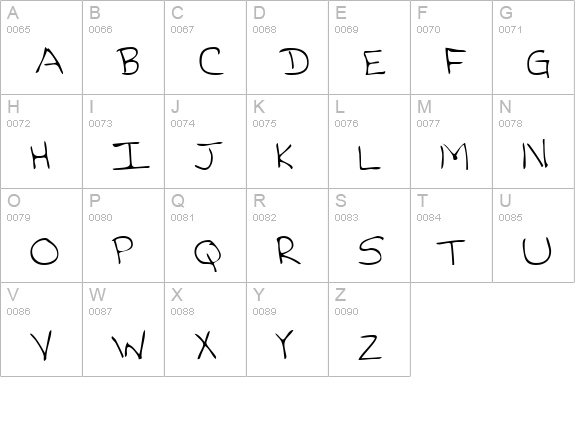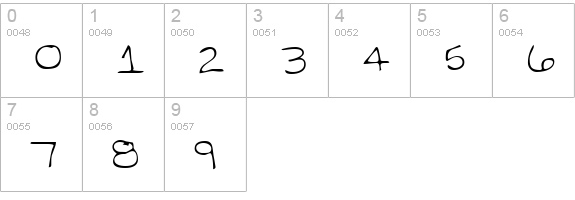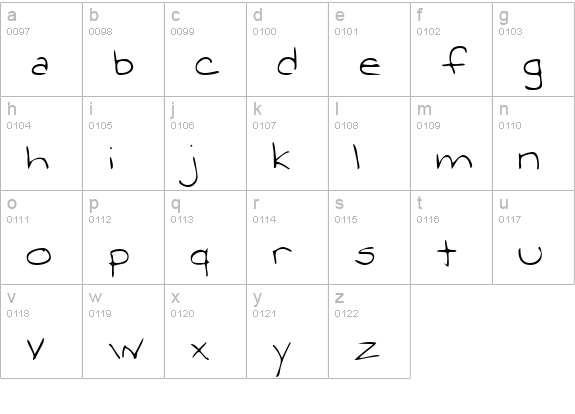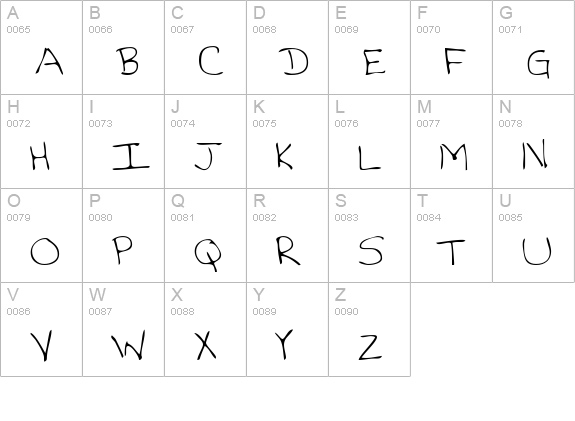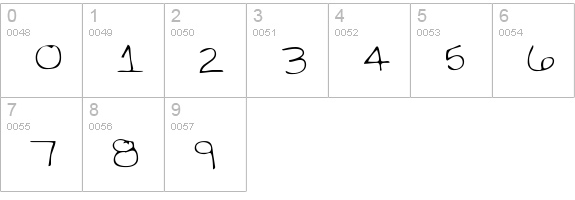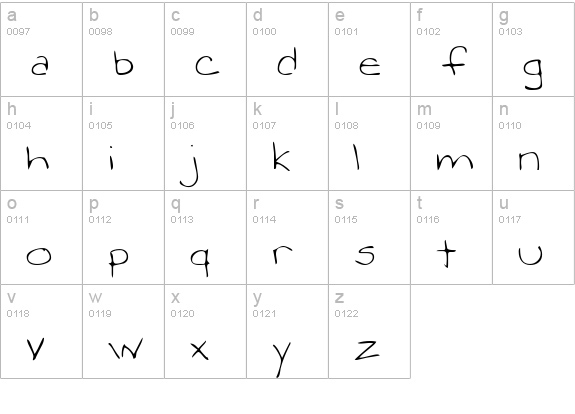
StacysHand Regular Font Details
StacysHand Regular is the standard, neutral variant in the StacysHand typeface family \xE2\x80\x94 well suited to general body text, paragraphs, and standard typographic work.
StacysHand Regular font is a charming and versatile typeface that adds a touch of elegance to any design project. With its delicate curves and graceful strokes, this font is perfect for creating stunning invitations, greeting cards, and logos. This font features a unique hand-drawn style that gives it a personal and intimate feel. Whether you're designing wedding stationery or crafting a heartfelt message, StacysHand Regular will add a warm and inviting touch to your creations. One of the best things about StacysHand Regular font is that it is available for free. That's right, you can download this beautiful font without spending a penny. Simply head over to FontsMarket.com and grab this font to enhance your designs with its timeless beauty. StacysHand Regular font is a must-have for any designer or creative individual looking to add a touch of sophistication to their projects. Its versatility and freely available download make it a valuable asset that you won't want to miss out on. So don't hesitate, download StacysHand Regular font today and elevate your designs to a whole new level.